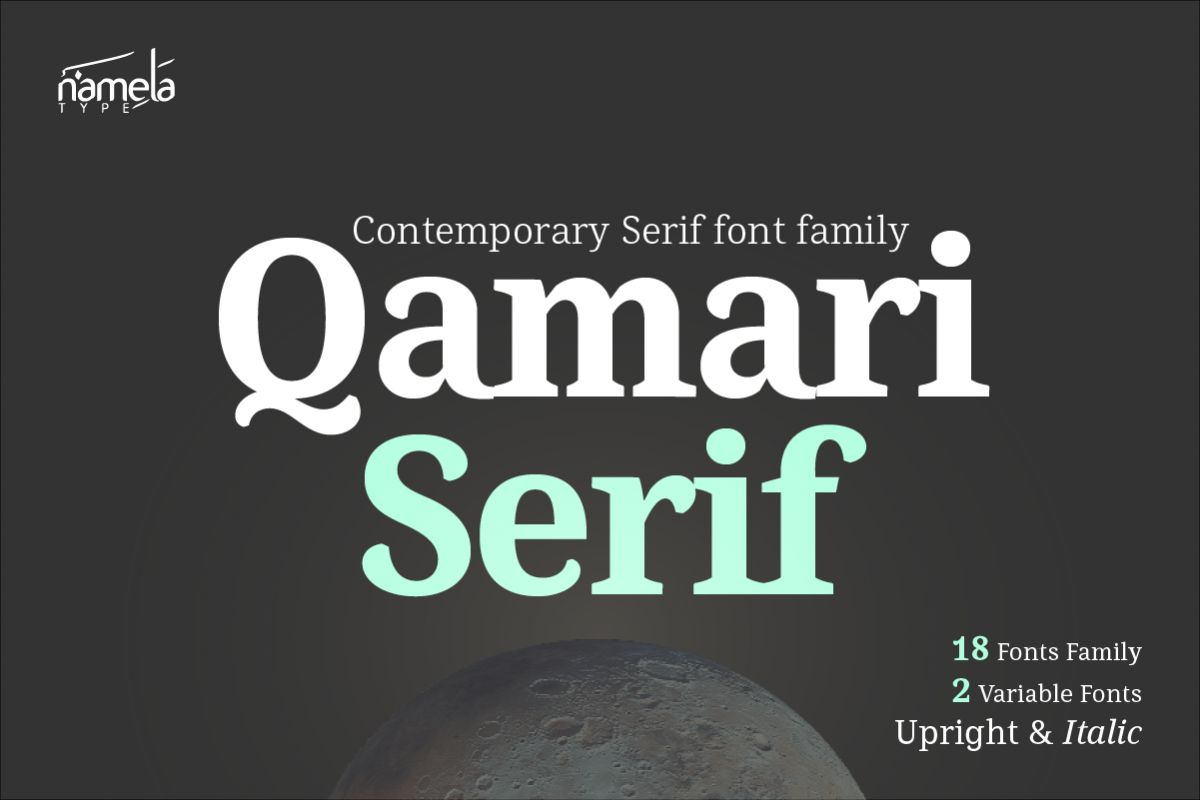
Qamari Serif Black
Qamari Serif Font - A Contemporary Typeface for Editorial & ePub Elegance in typography rarely announces itself loudly. It reveals itself gradually—in the curve of a bracket, the tension of a wedge serif, and the way a typeface maintains its identity across multiple weights. Qamari Serif from Namelatype is a perfect example of that quiet sophistication. Qamari Contemporary serif Font is built on the interplay between classical tradition and modern refinement. It offers both visual grace and te